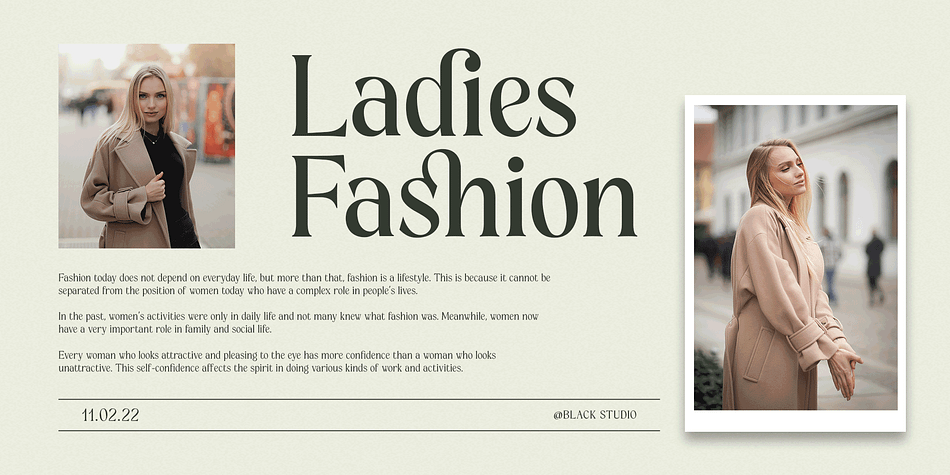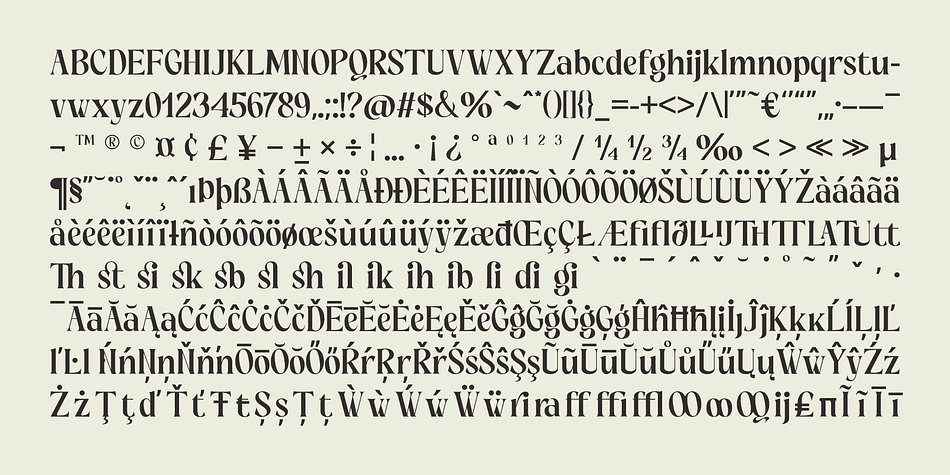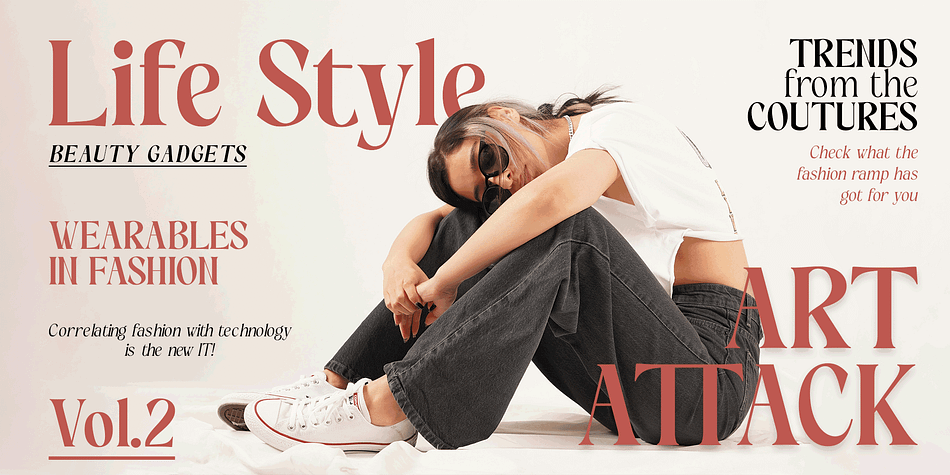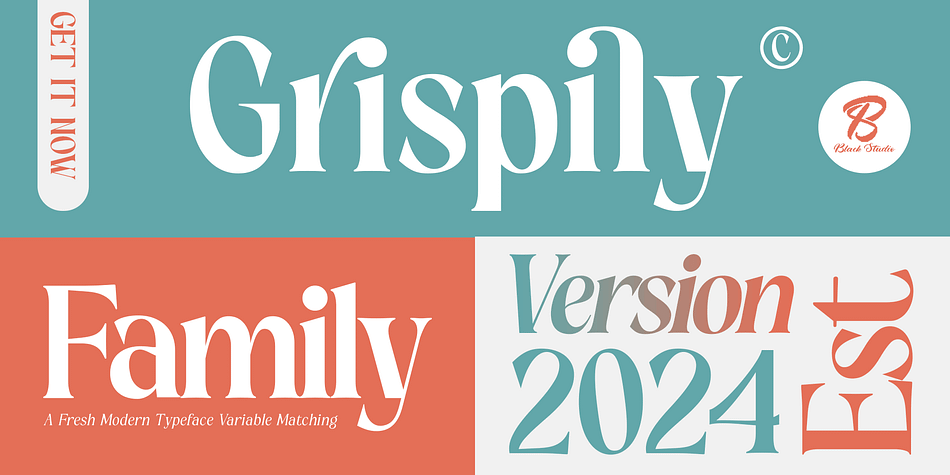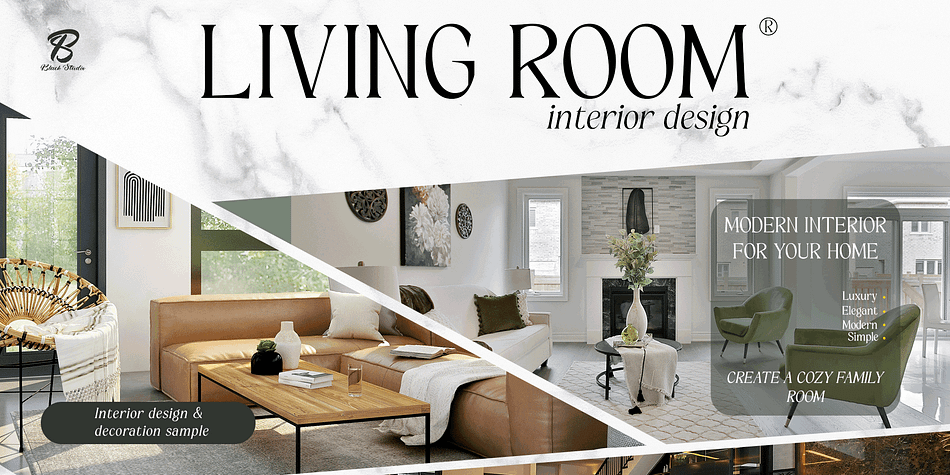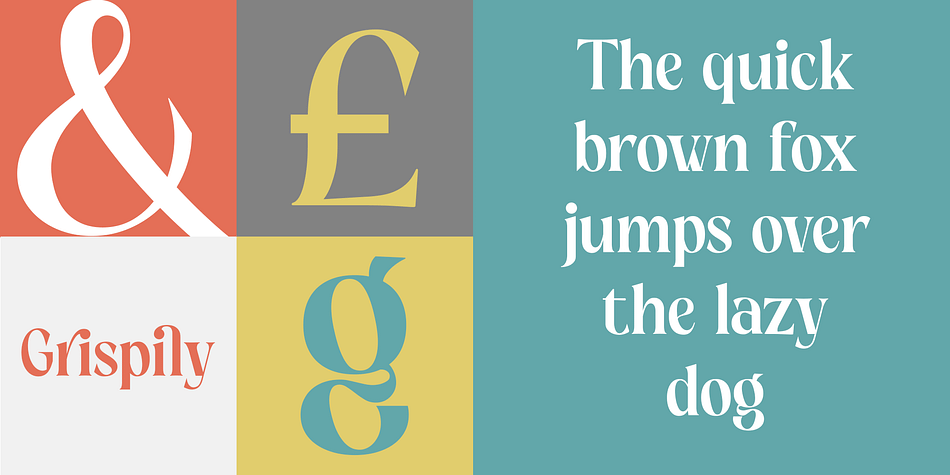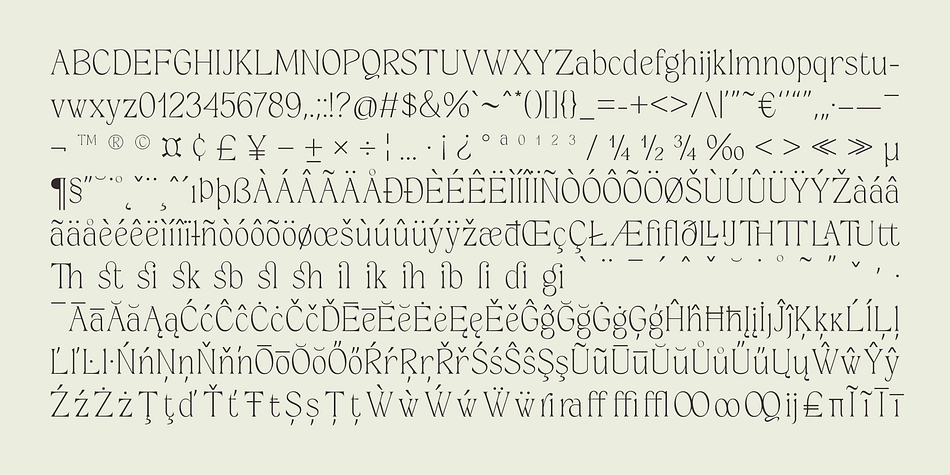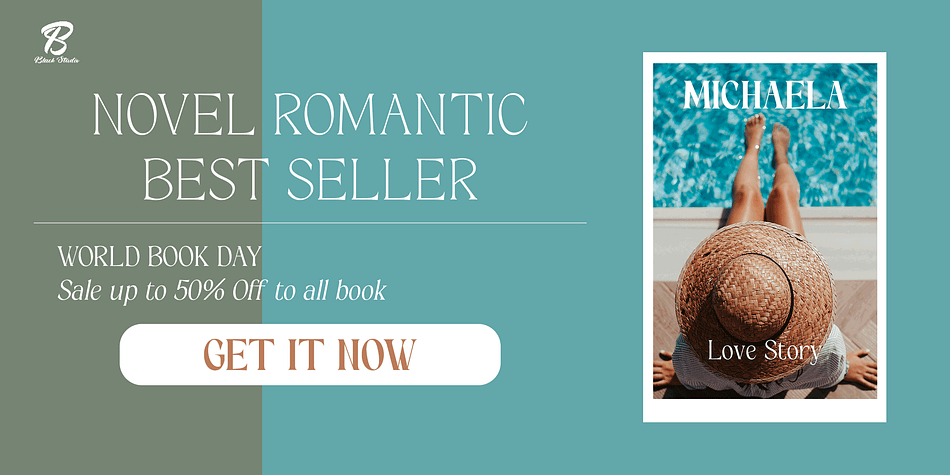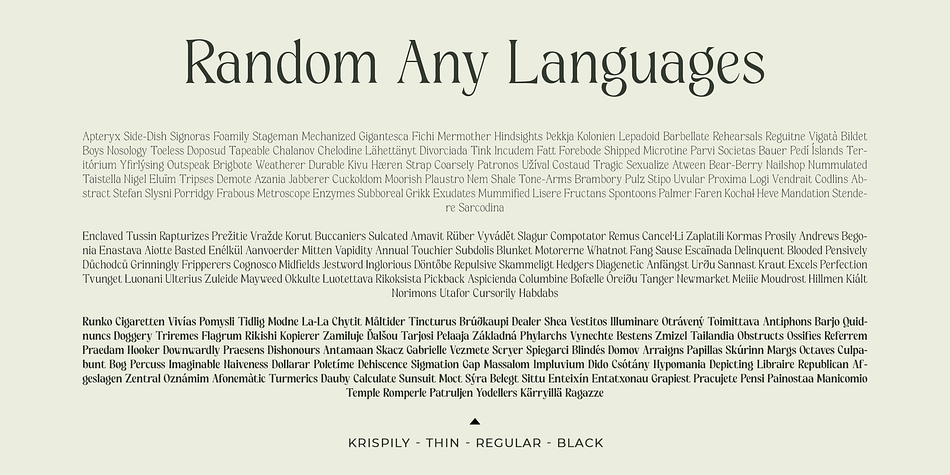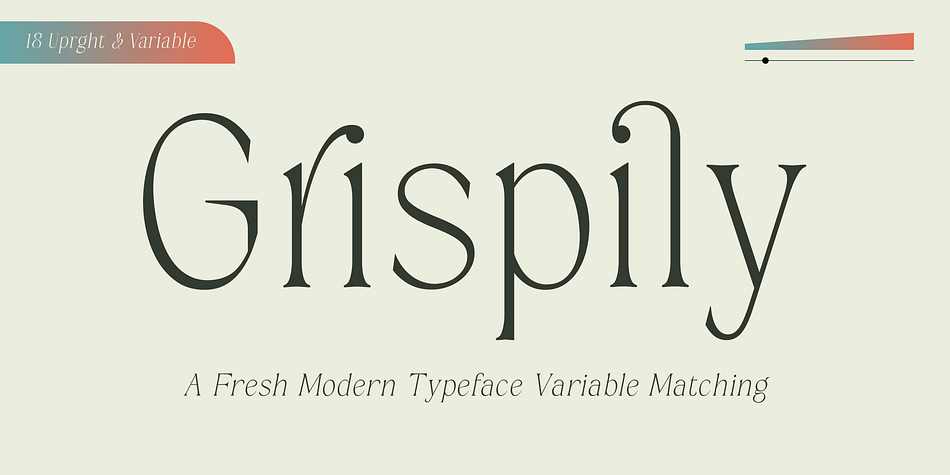
Grispily
Grispily is a display serif font family. This typeface has nineteen styles and was published by Black Studio.
Grispily is a charming and versatile family font that combines a handwritten style with a touch of elegance. It’s known for its clean lines, slightly organic feel, and varying stroke widths, lending it a balanced and friendly appearance. Grispily offers different weights and styles, making it suitable for various design purposes, from invitations and branding to headlines and creative projects.